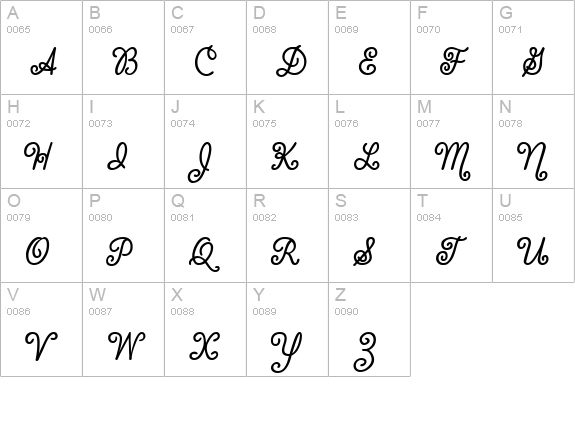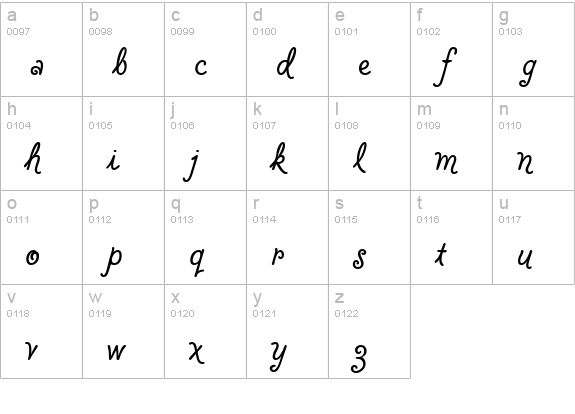
Flounder Font Details
Introducing Flounder font, a whimsical and playful typeface that is sure to add a touch of charm to your designs. With its rounded edges and quirky design, Flounder font is perfect for projects that call for a fun and lighthearted feel. This versatile font can be used for a variety of purposes, from branding to invitations to social media graphics. And the best part? Flounder font is completely free to download at FontsMarket.com! So go ahead and give your projects a fresh and unique look with Flounder font today.